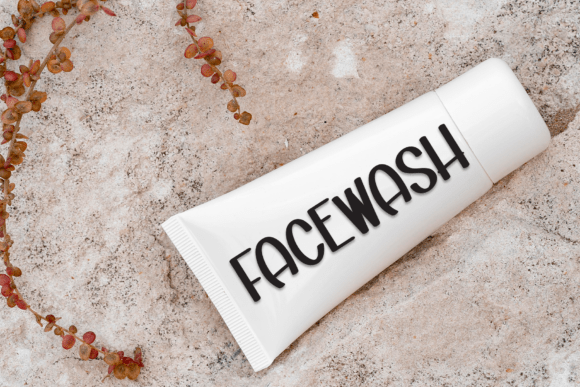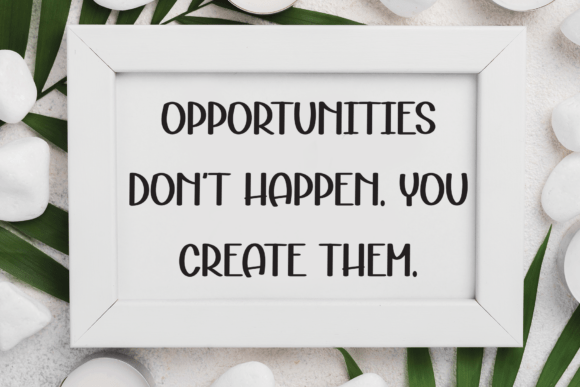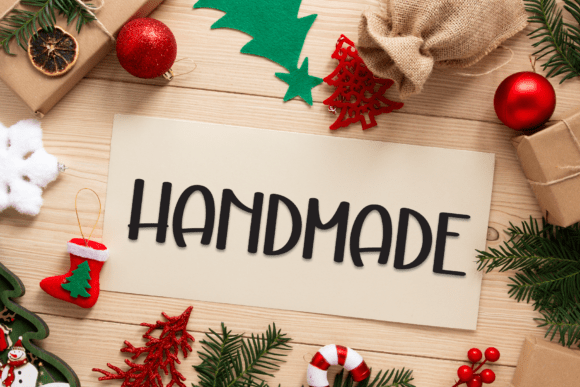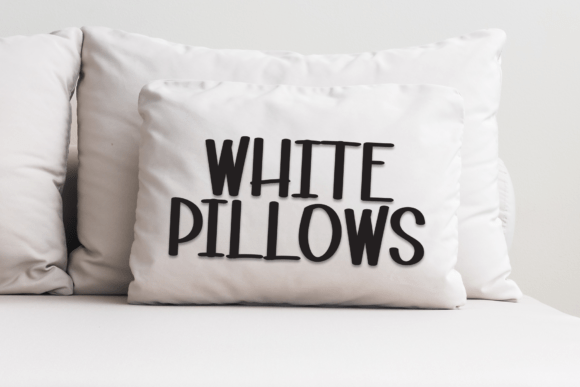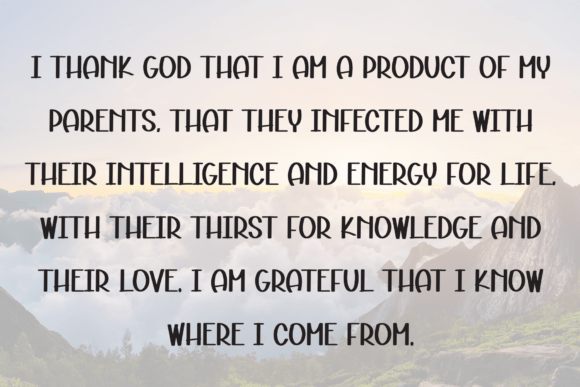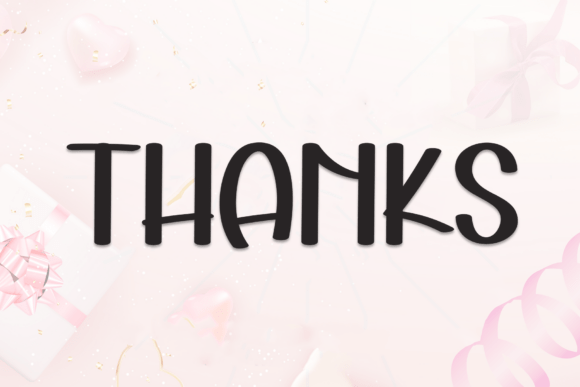
Introducing Birthday Font: The Ultimate Choice for Whimsical and Elegant Designs
Are you tired of using the same old fonts for your designs? Do you want to add a touch of playfulness and elegance to your creations? Look no further than the Birthday Font, a lovable and whimsically handwritten display font that’s perfect for making your designs stand out. In this article, we’ll take a closer look at the Birthday Font, its features, and how you can use it to elevate your designs.
What is Birthday Font?
Birthday Font is a beautifully crafted, handwritten display font that’s designed to add a touch of whimsy and elegance to your designs. With its charming character and light-hearted feel, this font is perfect for creating wedding invites, greeting cards, and a wide range of designs that require a playful yet sophisticated touch.
One of the standout features of the Birthday Font is its unique and charismatic style. This font doesn’t just communicate words; it whispers stories in a way that’s both endearing and captivating. Whether you’re a designer, crafter, or DIY enthusiast, the Birthday Font is sure to become your go-to choice for creating beautiful and eye-catching designs.
So, what makes the Birthday Font so special? Here are some of its key features:
- Whimsical and Handwritten Style: The Birthday Font boasts a unique, handwritten style that’s both playful and elegant.
- Charming Character: This font has a charming character that’s sure to capture the eye and heart of your audience.
- Light-Hearted Touch: The Birthday Font adds a light-hearted touch to your designs, making it perfect for creating wedding invites, greeting cards, and more.
- Versatile: This font is versatile and can be used for a wide range of designs, from digital projects to print materials.
How to Use Birthday Font in Your Designs
Now that we’ve covered the features of the Birthday Font, let’s talk about how you can use it in your designs. Here are some ideas to get you started:
- Wedding Invites: Use the Birthday Font to create beautiful and elegant wedding invites that set the tone for the big day.
- Greeting Cards: Add a personal touch to your greeting cards with the Birthday Font, perfect for birthdays, anniversaries, and more.
- Digital Projects: Use the Birthday Font in your digital projects, such as social media graphics, blog posts, and email newsletters.
- Crafting and DIY Projects: The Birthday Font is perfect for crafters and DIY enthusiasts who want to add a personal touch to their projects, such as scrapbooking, card making, and more.
Tips and Tricks for Working with Birthday Font
Here are some tips and tricks to help you get the most out of the Birthday Font:
- Experiment with Font Sizes: Play around with different font sizes to create visual interest and hierarchy in your designs.
- Pair with Other Fonts: Experiment with pairing the Birthday Font with other fonts to create a unique and eye-catching combination.
- Use in Combination with Images: Use the Birthday Font in combination with images to create a beautiful and visually appealing design.
In conclusion, the Birthday Font is a beautiful and versatile font that’s perfect for designers, crafters, and DIY enthusiasts who want to add a touch of whimsy and elegance to their designs. With its charming character and light-hearted feel, this font is sure to become your go-to choice for creating beautiful and eye-catching designs. So why wait? Give the Birthday Font a try today and see the difference it can make in your designs!